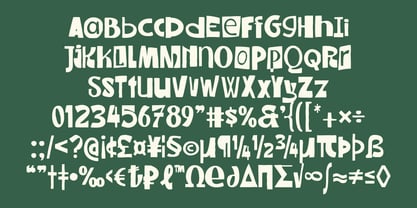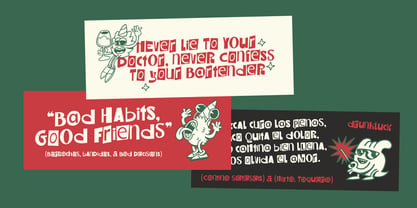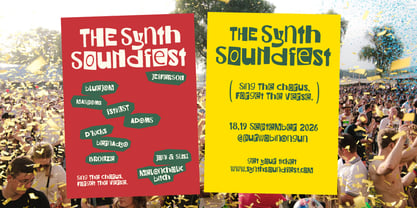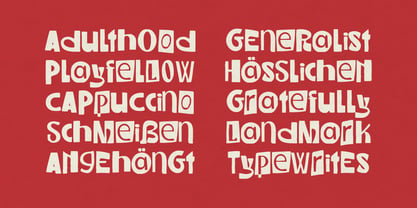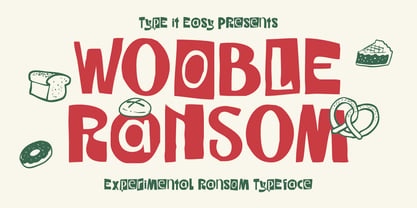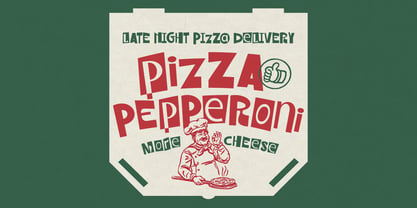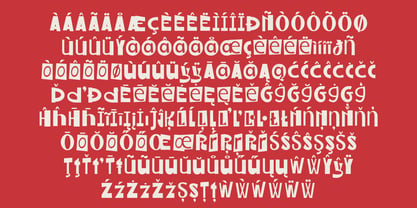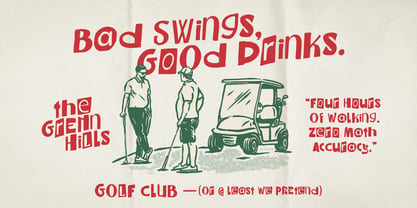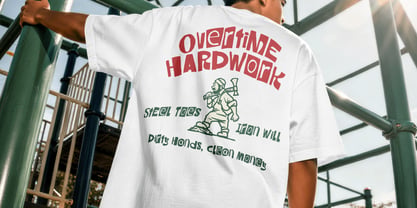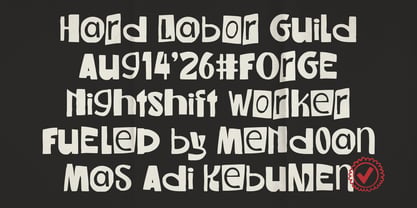
ST Wooble Ransom
La famille de polices ST Wooble Ransom a été conçue par Agni Ardi Rein Prasetyo et publiée par Type it Easy. ST Wooble Ransom contient 2 styles et options de package familial. En savoir plus sur cette famille
Quirky, bold, and unapologetically playful.
ST Wooble Ransom is an experimental display typeface inspired by the chaotic charm of paper cutouts and classic ransom note aesthetics—reimagined with a soft, doughy, organic rhythm. Each character features irregular block cutouts, bouncy baselines, and chunky silhouettes designed to give your typography an instant handcrafted punch.
Whether you are crafting food & bakery packaging, punchy retro posters, music gig graphics, playful merchandise, or eye-catching social media headlines, STWooble Ransom brings maximum personality with minimal effort.
Key Features:
• Expressive Paper-Cut / Ransom Aesthetic: Dynamic contrast between positive and negative shapes for high-impact headlines.
• Playful & Organic Geometry: Wonky, hand-cut silhouettes that maintain strong legibility.
• Versatile Display Usage: Perfect for packaging, branding, apparel, editorial layouts, and event posters.
• Character Set: Uppercase, numerals, punctuation, and essential symbols
Recommended For:
• Food & beverage packaging (bakery, snacks, coffee, artisanal goods)
• Bold editorial covers, magazine spreads, and zines
• Gig posters, album covers, and event merchandise
• Brand identities looking for a fun, rebellious, or nostalgic craft vibe